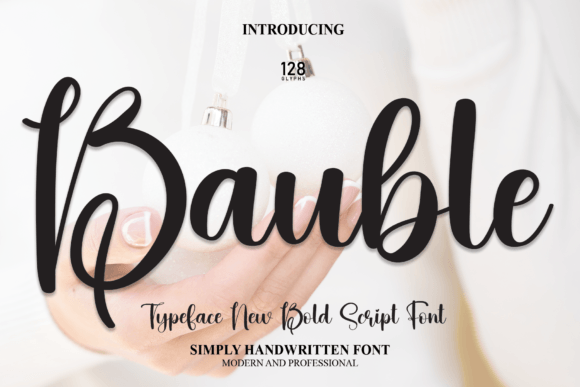
The Bauble Font: A Cool and Neat Handwritten Script to Elevate Your Designs
I’ll never forget the design project that led me to fall in love with the Bauble font. I was working on a branding project for a luxury craft business, and I needed a font that would convey elegance, sophistication, and a touch of playfulness. After hours of searching through font libraries and trying out different combinations, I stumbled upon Bauble – and it was like the design gods had smiled upon me! ✨
What I Love About Bauble
- ✨ Classy calligraphic influences that add a touch of sophistication to any design
- ✅ Contemporary and fresh feel that’s perfect for modern brands
- 🎉 Highly legible, even at smaller font sizes
- 💫 Beautifully crafted to take advantage of OpenType features
While Bauble is an amazing font, it’s not without its quirks. For example:
- 🤔 Some users may find the font a bit too ornate for very casual or playful designs
- ⚠️ Not all characters have perfect symmetry, which can be noticeable in certain contexts
Bauble was designed by a talented typographer who wanted to create a font that would blend classic elegance with modern flair. The designer drew inspiration from traditional calligraphy and handwriting, while also experimenting with new techniques and digital tools. The result is a font that’s both timeless and trendy – perfect for designers who want to add a touch of sophistication to their work.
Q: What type of designs is Bauble best suited for?
A: Bauble is a versatile font that can be used for a wide range of designs, from luxury branding and high-end products to wedding invitations and creative projects.
Q: Is Bauble a difficult font to read?
A: No, Bauble is a highly legible font that’s designed to be easy to read, even at smaller font sizes. However, as with any script font, it’s best to use it in moderation and avoid overusing it in long blocks of text.